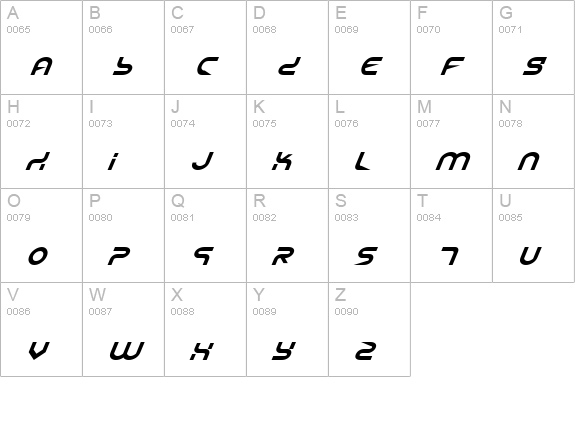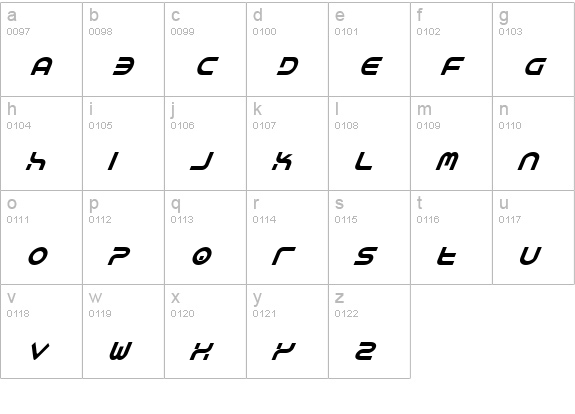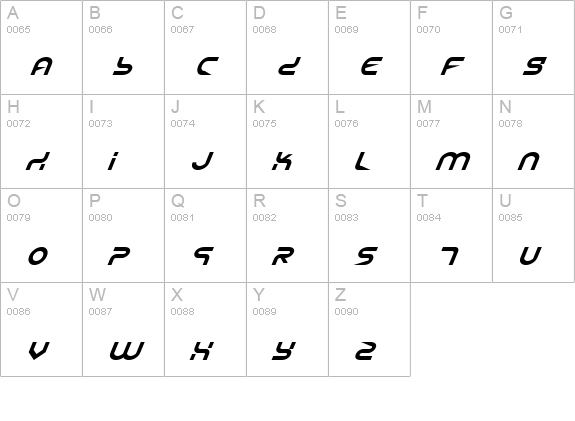
Yukon Tech Italic is a distinctive, italic variant in the Yukon typeface family \xE2\x80\x94 well suited to design and typography projects.
Introducing Yukon Tech Italic font, a sleek and modern typeface designed for tech-savvy individuals and futuristic projects. With its clean lines and sharp angles, Yukon Tech Italic exudes a sense of innovation and sophistication. The italicized style adds a dynamic touch to any design, making it perfect for conveying a sense of movement and energy. The best part? Yukon Tech Italic font is available for free download at FontsMarket.com. Say goodbye to expensive font licenses and enjoy the freedom to use this cutting-edge typeface in your personal and commercial projects without any cost. Enhance your designs with Yukon Tech Italic and let your creativity shine!